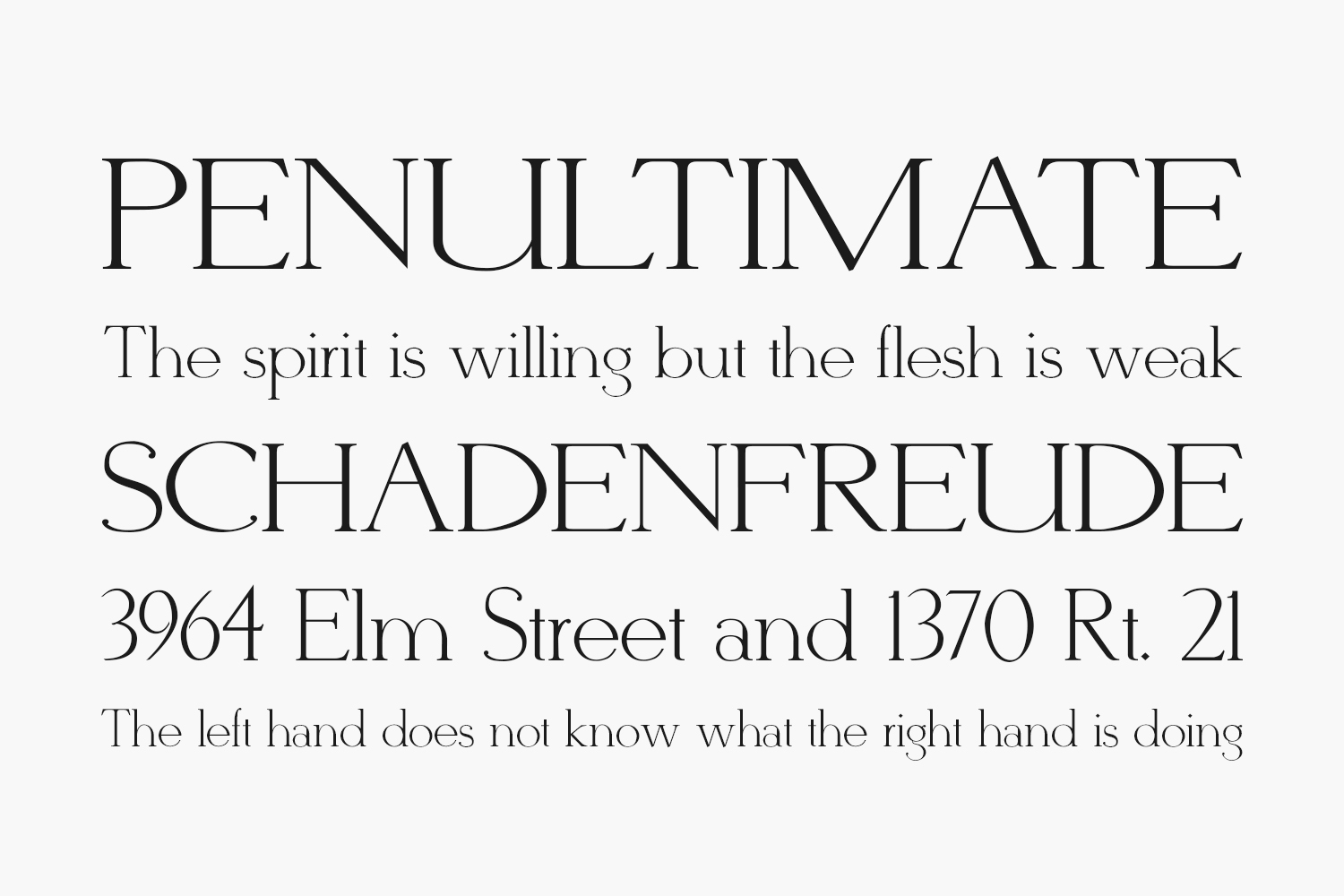
Derivia Free Font is an expressive serif font with a small x-height. It has a serious, yet quirky disposition. Capital letters based on “Livia,” a free public domain font by S.G. Moye.